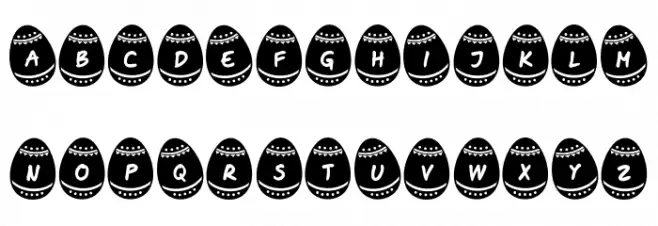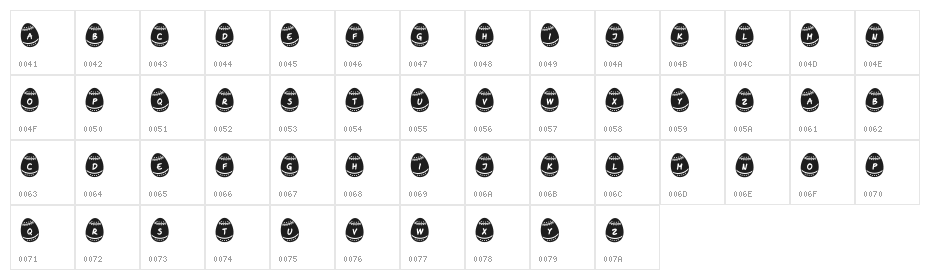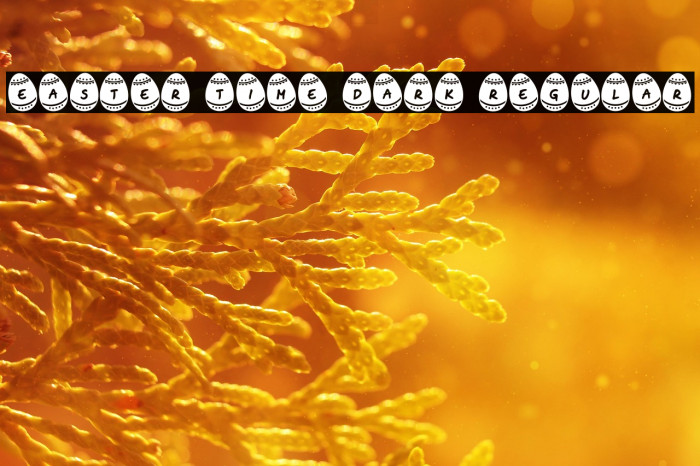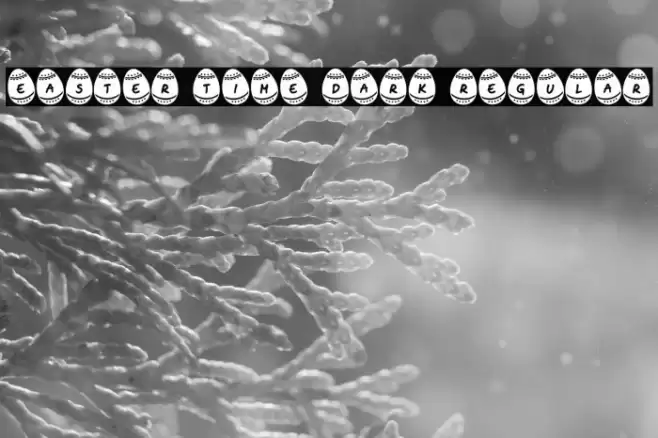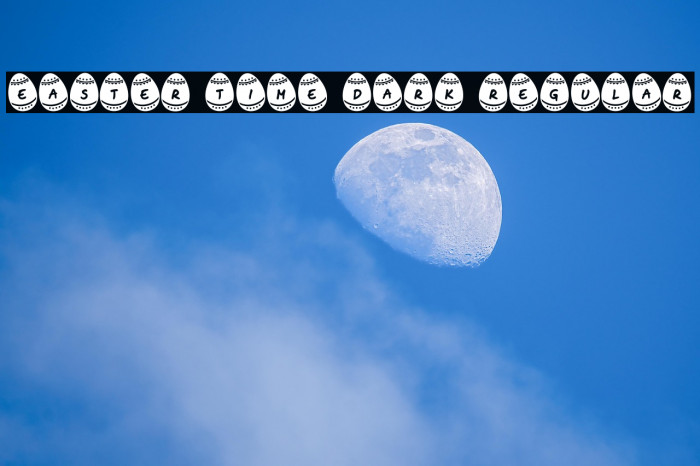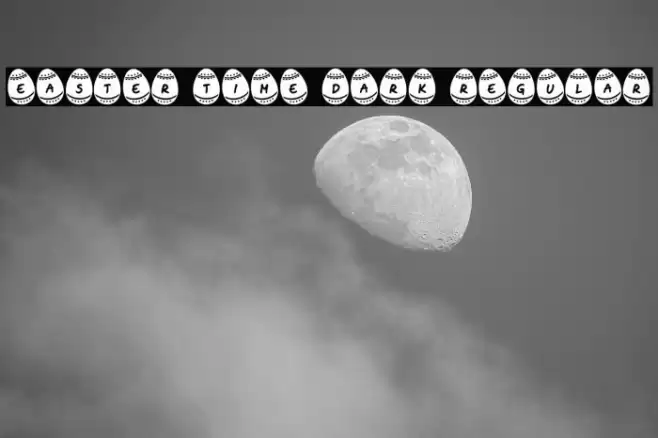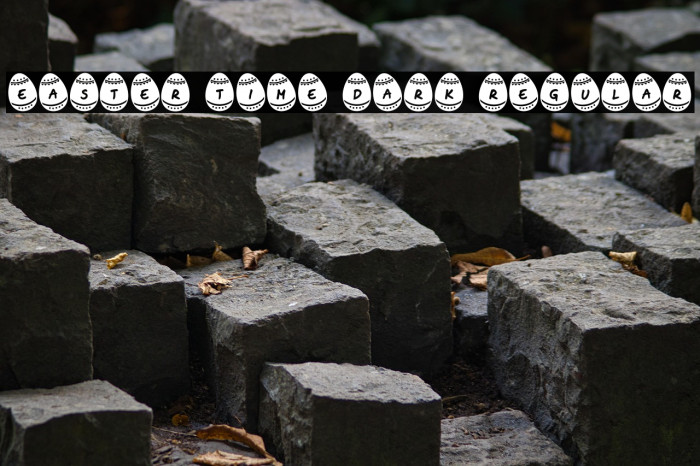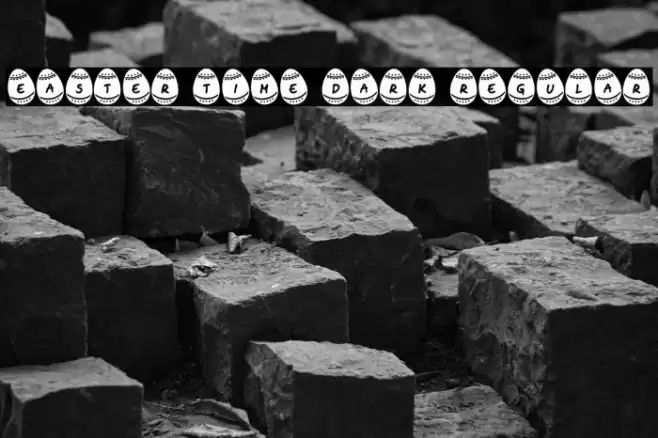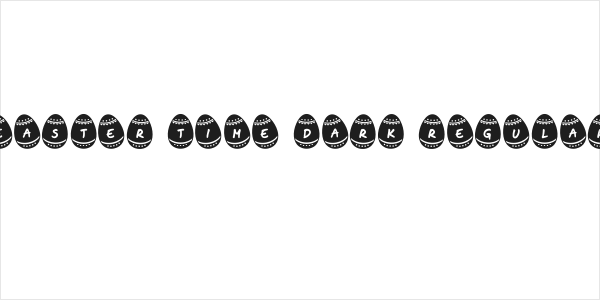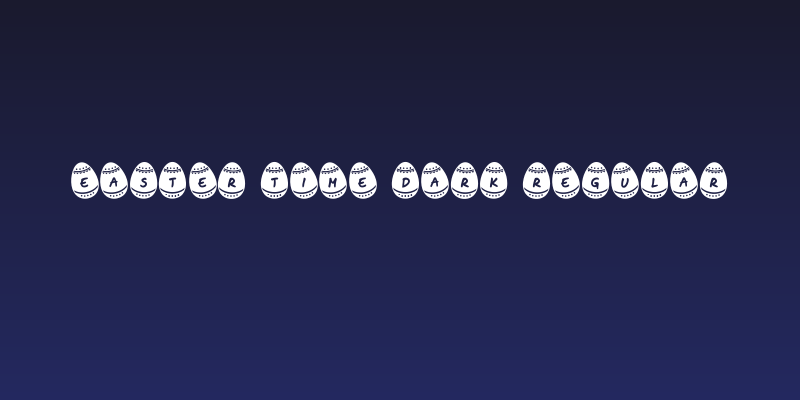
Easter Time Dark Regular Font
Easter Time Dark Regular Description
This playful and decorative font features letters enclosed within egg shapes, each adorned with unique patterns reminiscent of Easter egg designs. The characters are bold and whimsical, with a hand-drawn appearance that adds a touch of charm and creativity. The uppercase letters are consistent in style, maintaining a uniformity that enhances readability despite the decorative elements. The font's unique presentation makes it ideal for festive occasions, particularly those related to Easter or springtime themes. Its distinctive style captures attention and brings a sense of fun and celebration to any project.